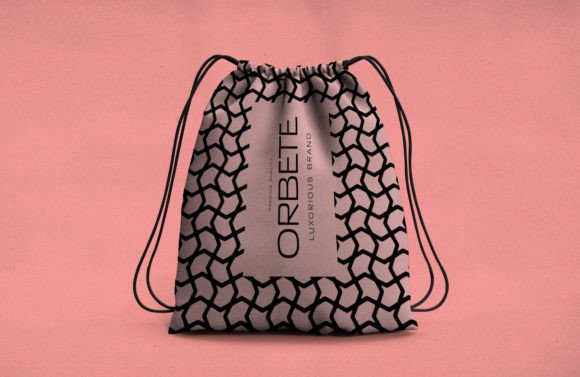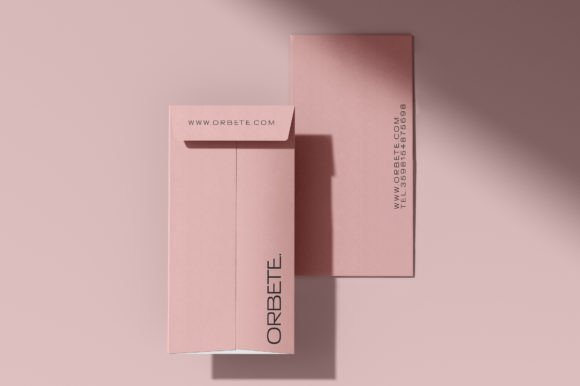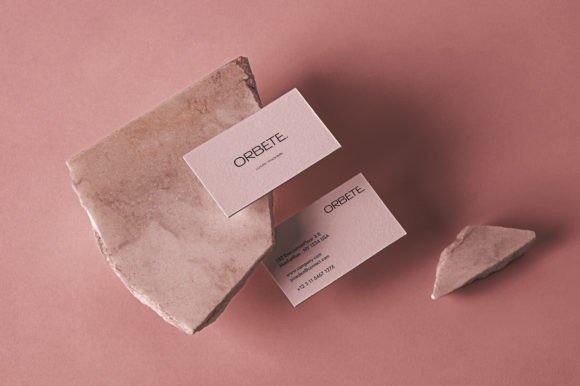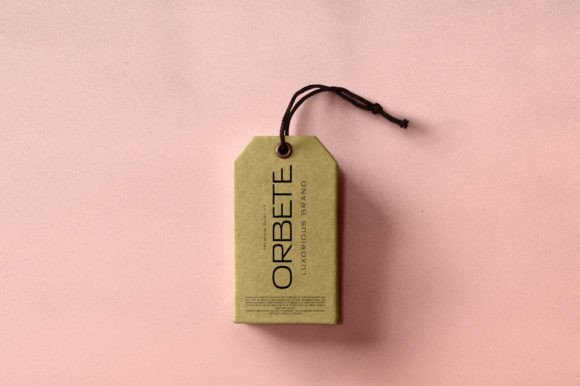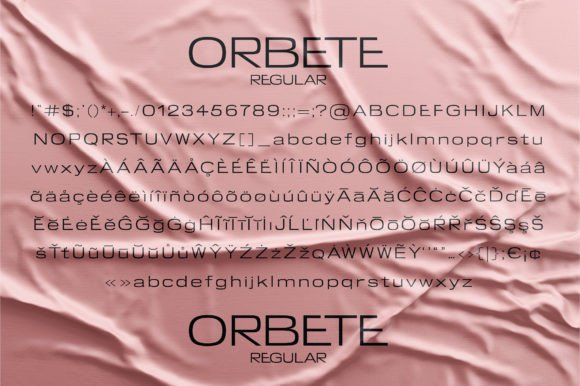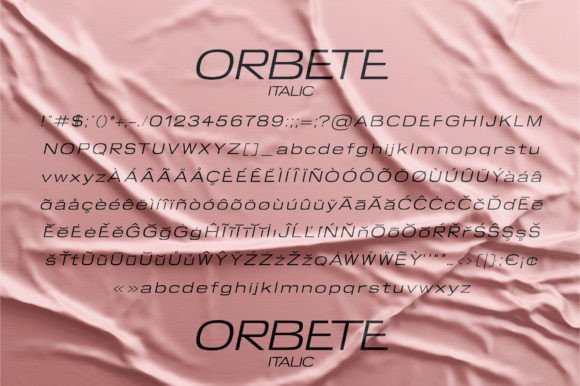
Introduction to Orbete Font
Have you ever stared at a blank design canvas, waiting for inspiration to strike? For designers, those moments of creative block can be the most frustrating. But what if you had the perfect tool to kickstart your next project? Enter the Orbete Font, a stunning sans serif typeface that’s sure to make your designs stand out.
As a valuable design resource, Orbete Font offers a unique combination of style and versatility. Its wide, clean lines make it an ideal choice for projects that require an eye-catching header, while its PUA encoding ensures that you can access all the glyphs and swashes with ease. Whether you’re working on packaging design, magazine layouts, or social media posts, Orbete Font is a high-quality addition to your creative arsenal.
Key Features of Orbete Font
- Includes 5 font styles with a transparent background for versatile use
- Unique characteristics: includes a range of elegant, modern, and playful styles to suit various design needs
Honest Review: Orbete Font
I recently had the chance to work with the Orbete Font for a creative project, and I must say it’s been a game-changer. This high-quality design resource has quickly become a staple in my workflow.
- ✨ The Orbete Font is incredibly versatile, making it perfect for a wide range of creative projects.
- ✨ The transparent background allows for seamless integration with any design element.
- ⚠️ The font can be quite bold, which may not be suitable for all design projects.
- ⚠️ Some characters may not render correctly in certain fonts or formatting.
Overall, I’m thoroughly impressed with the Orbete Font. Its high quality and versatility make it a valuable addition to any designer’s toolkit. With a few tweaks to address the limitations, I’d highly recommend this design resource to anyone looking to elevate their creative projects.
Common Use Cases and Tips
Orbete Font is ideal for creative projects that require a high-quality, transparent background. It’s perfect for use in presentations, social media graphics, and website design.
Some common use cases for Orbete Font include:
– Creating eye-catching social media graphics
– Designing professional-looking presentations
– Adding creative text elements to website design